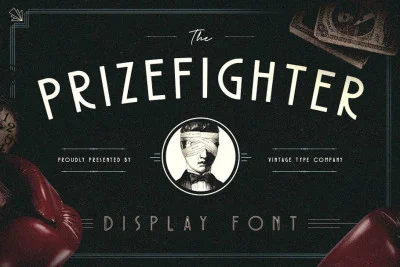
Prizefighter Display Font
Prizefighter Font
Prizefighter Font is perfect for sports branding, fitness gym logos, athletic apparel designs, boxing event posters, energy drink packaging, competitive gaming graphics, motivational workout content, sports bar signage, championship certificates, and bold advertising campaigns that require powerful and aggressive typographic impact.
This font is exciting because it channels raw strength, determination, and competitive spirit through bold, muscular letterforms that command immediate attention and respect. The robust character design embodies the fighting spirit and relentless energy of champions, making it ideal for projects that need to convey power, confidence, and unstoppable momentum.
The Prizefighter Font family typically includes uppercase and lowercase characters, numerals, punctuation marks, special symbols, and alternative glyphs that provide versatility for creating dynamic sports-related designs and high-energy marketing materials.
Whether you're designing for athletic brands, creating powerful motivational content, or developing marketing materials for competitive industries that demand bold statements, Prizefighter Font delivers the knockout punch your projects need. Its aggressive stance and commanding presence make every design feel more intense and memorable, ensuring your messages hit hard and resonate with audiences who appreciate strength, courage, and the champion mindset that drives success in sports and beyond.